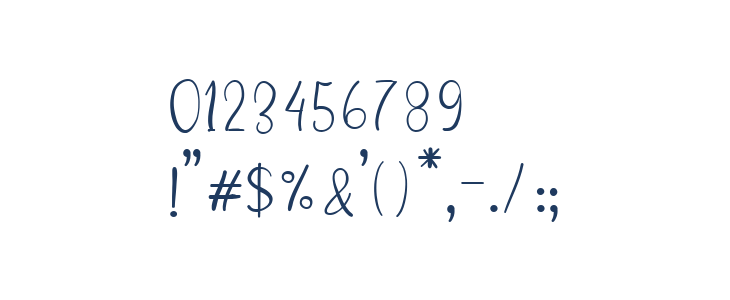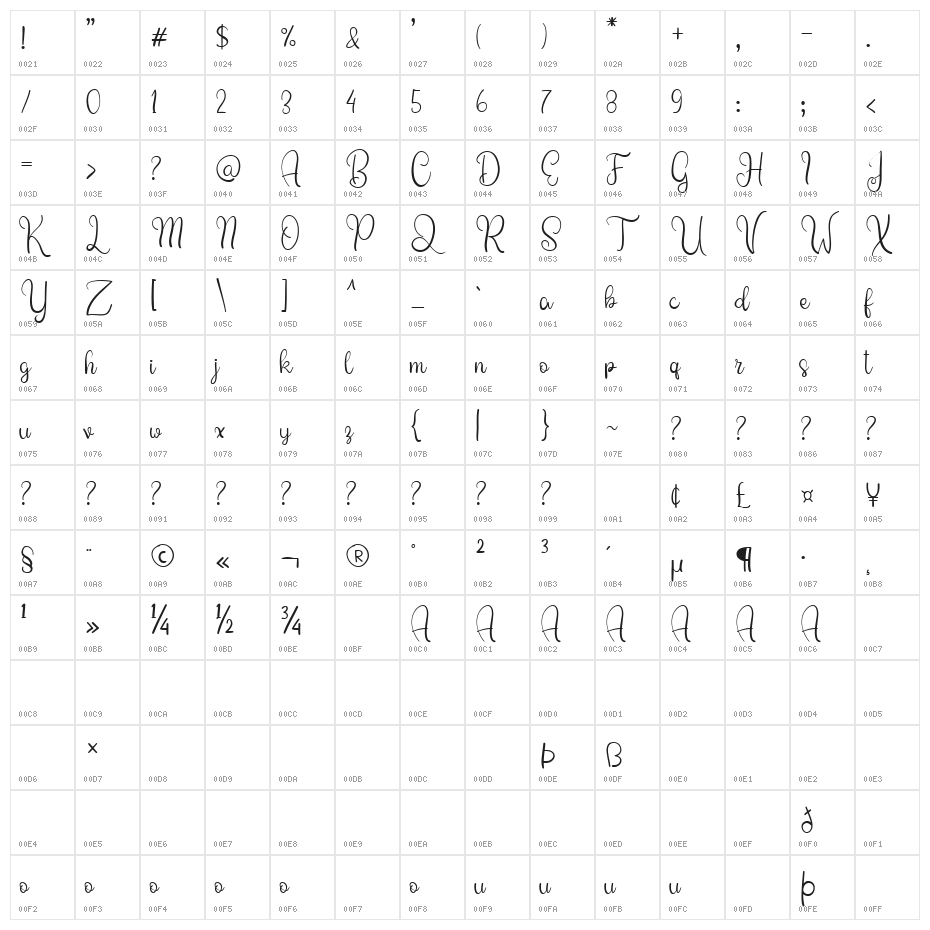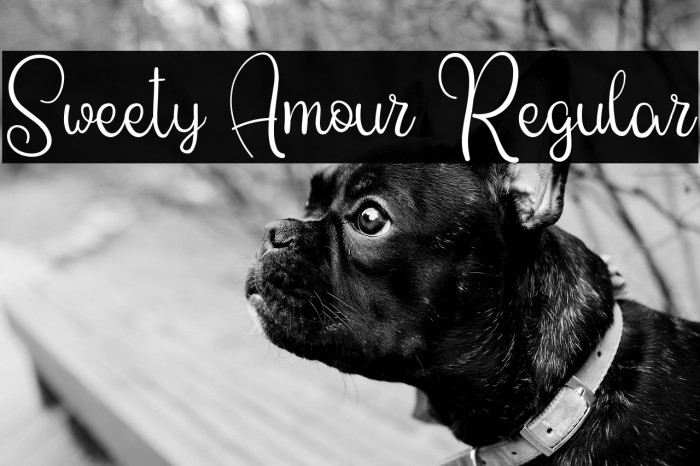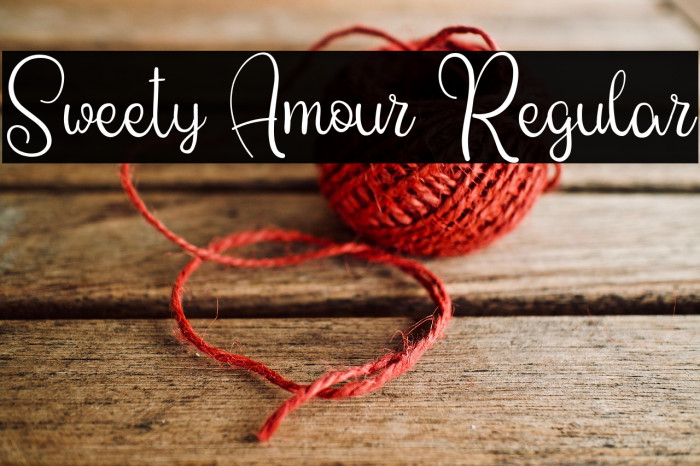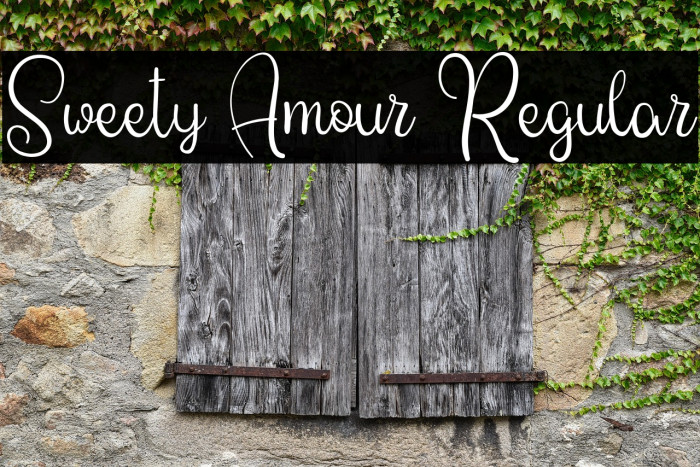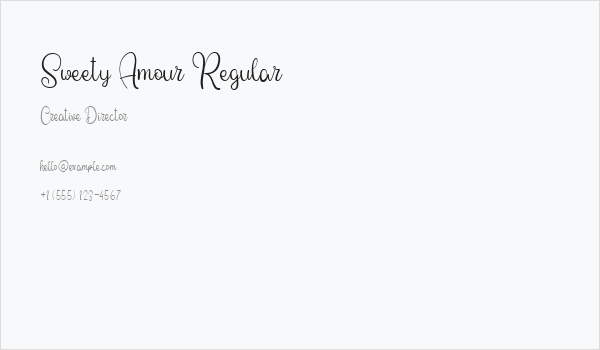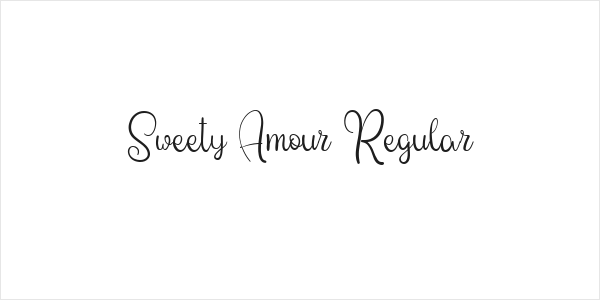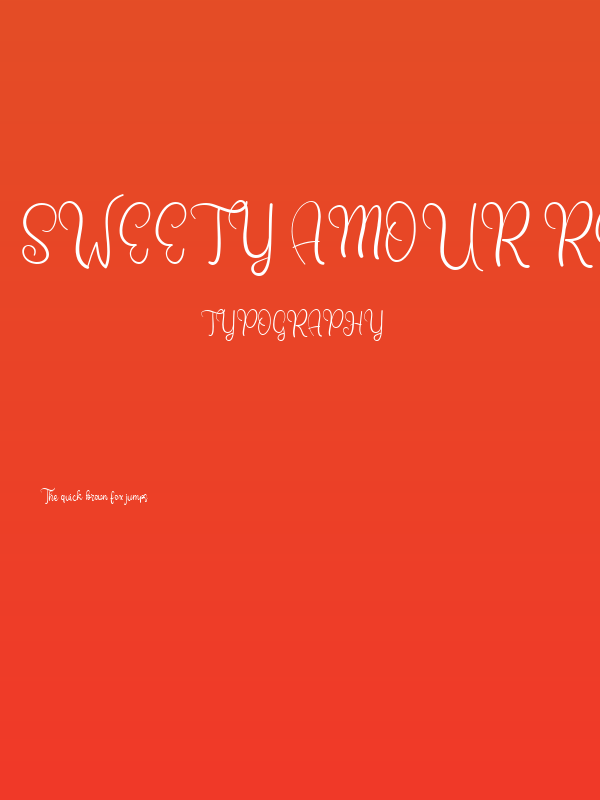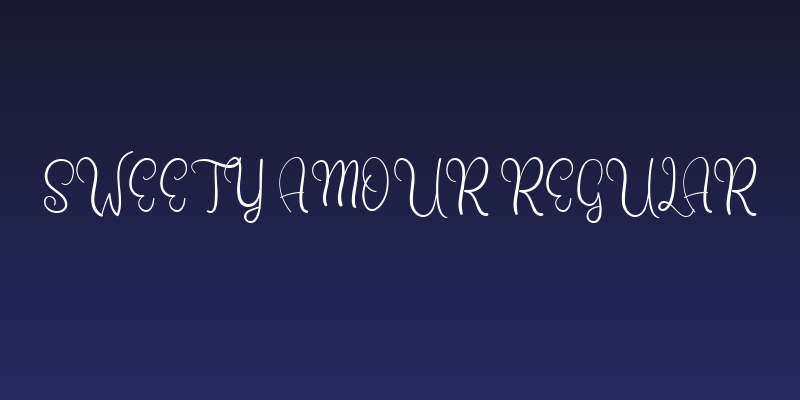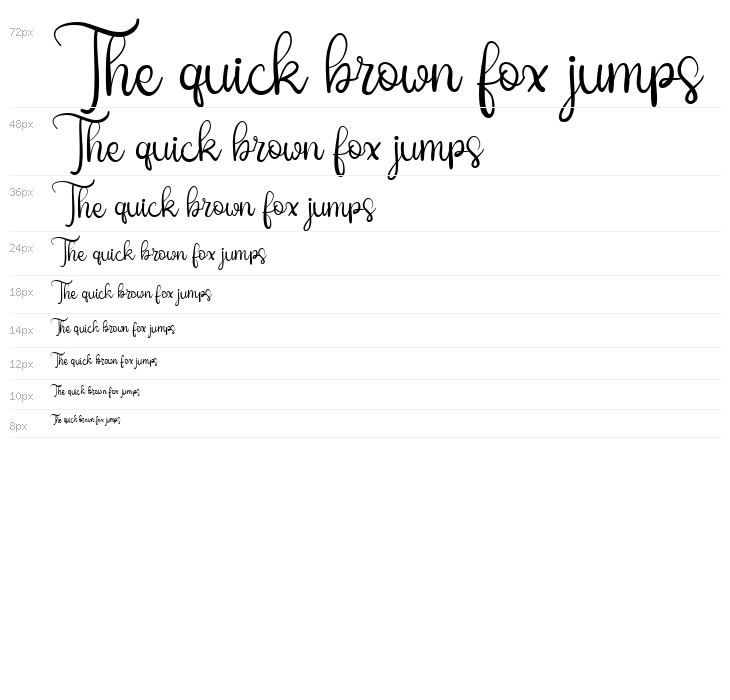
Sweety Amour Regular Font
Sweety Amour Regular Description
This font features a charming and playful script style with a handwritten appearance. The uppercase letters are elegantly curved with a slight flourish, giving them a whimsical and romantic feel. The lowercase letters maintain a consistent flow, enhancing readability while retaining a personal touch. Numbers are clear and well-formed, complementing the overall aesthetic. Special characters are thoughtfully designed to match the font's playful nature. The strokes are smooth and consistent, with medium contrast, adding to the font's legibility and appeal. This font is perfect for projects that require a touch of elegance and personality.